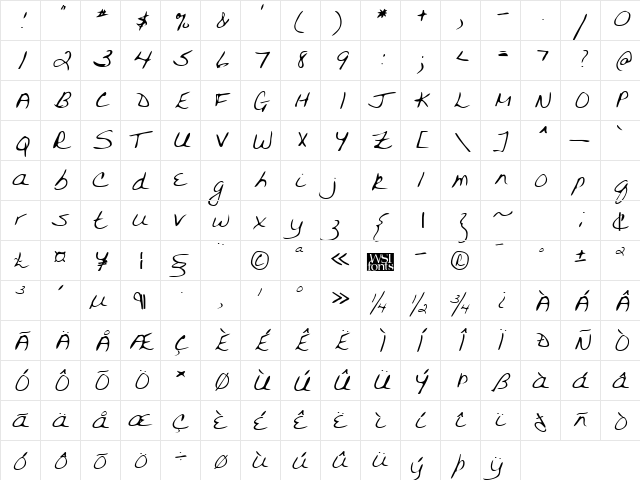
FarinasHand Regular
Design Context for FarinasHand Typeface
FarinasHand flows with the natural rhythm of handwritten lettering, making it ideal for designs that call for warmth and personal expression.
Font Pairing: Combine FarinasHand with a simple geometric sans for maximum contrast — the tension between flowing curves and clean structure is a classic typographic pairing.
Pro Tip: Use FarinasHand for short runs of text — names, titles, or taglines. Extended body copy in script faces tires the eye quickly.